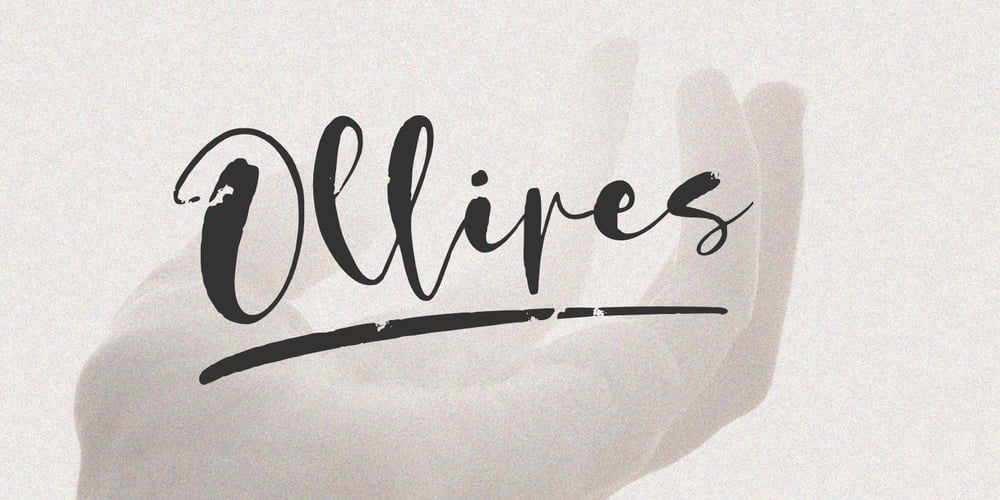
Ollives Font Family was designed by Aldy Sidik, Nurul Hidayani and published by Olivetype. Ollives contains 1 styles and family package options. Introducing Ollives, a stylish modern calligraphy-styled script font. This beautiful font is perfect for adding a touch of elegance to any project. With its flowing lines, cool textures and graceful curves, Ollives is sure to add a touch of class to your work.So what’s included : Basic Latin Uppercase and Lowercase Numbers, symbols, and punctuations Multilingual Support. PUA Encoded and fully accessible without additional design software Simple Installations works on PC & Mac Thank You.